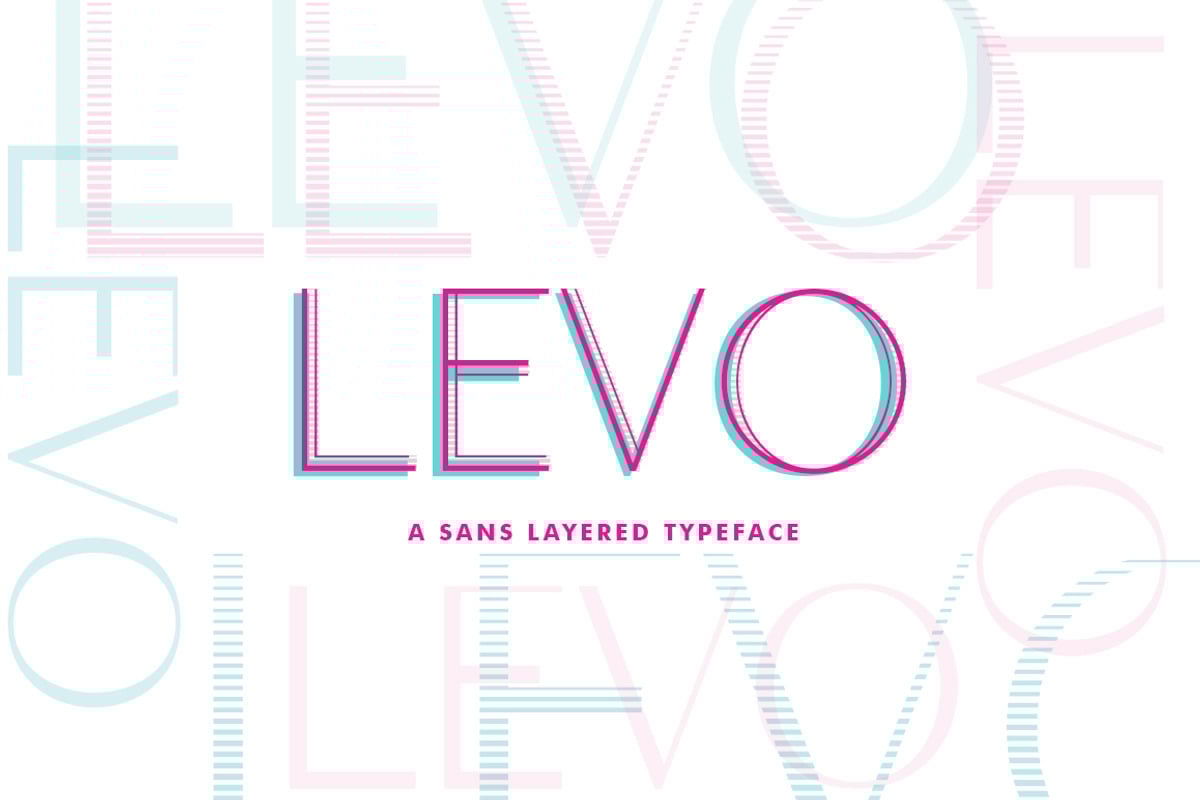
Levo Sans 3 Layered Font
Create stunning layered typography effects with this minimalist sans serif font family featuring three versatile styles. Levo Sans delivers clean, contemporary character design with three distinct variations: regular, base, and gradient. This minimalist layered typeface supports multilingual text and utilizes a layers method for creating dynamic visual effects. Perfect for professional applications including: Business cards and logo design Posters and magazine layouts Website headers and banners...